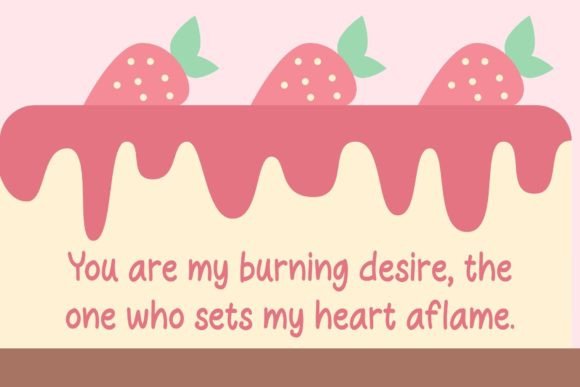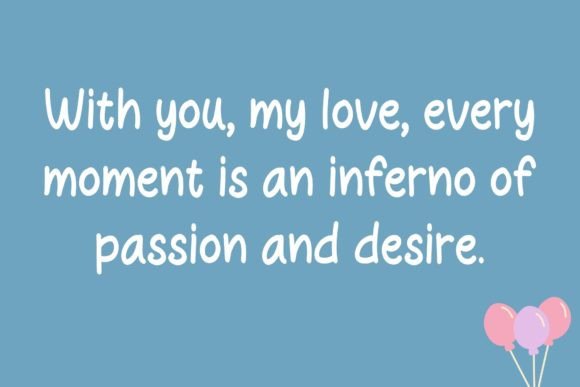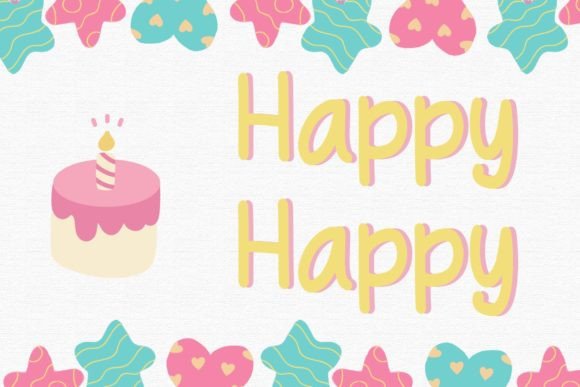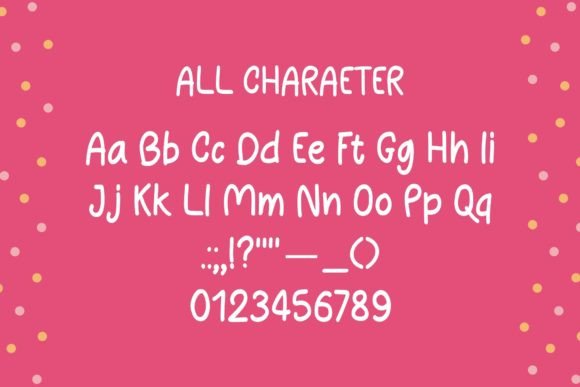
Introducing the Happy Happy Font: A Vibrant Expression of Joy
In the world of design, typography plays a crucial role in conveying emotions and setting the tone for any creative project. Whether you’re crafting a greeting card, invitation, or social media post, the right font can elevate your message and make it more engaging. That’s where the “Happy Happy” font comes in – a delightful typeface designed to spread happiness and positivity. In this article, we’ll explore the features and benefits of the “Happy Happy” font, and how it can add a vibrant touch to your designs.
The Power of Typography in Design
Typography is an essential element of design, allowing creators to communicate their message in a visually appealing way. The right font can evoke emotions, convey personality, and even influence how a message is perceived. With the vast array of fonts available, designers and crafters can choose from a wide range of styles to suit their project’s tone and theme. The “Happy Happy” font is a unique addition to this collection, specifically designed to capture the essence of happiness and joy.
What is the Happy Happy Font?
The “Happy Happy” font is a digital typeface that embodies the spirit of happiness and playfulness. Its lively and energetic design makes it perfect for projects that require a cheerful and upbeat tone. This font is ideal for designers and crafters who want to add a personal touch to their creations, making them more engaging and memorable. With its clean and crisp lines, the “Happy Happy” font is versatile and can be used for various design projects, from digital graphics to print materials.
Key Features of the Happy Happy Font
- Vibrant and Playful Design: The “Happy Happy” font boasts a lively and energetic design that is sure to capture the attention of your audience.
- High-Quality Digital File: This font is a high-quality digital file, ensuring that it looks great in both digital and print formats.
- Versatile: This font can be used for a wide range of design projects, including greeting cards, invitations, social media posts, and more.
How to Use the Happy Happy Font
- Pair it with Other Fonts: Combine the “Happy Happy” font with other complementary fonts to create a unique and visually appealing design.
- Experiment with Colors: The “Happy Happy” font looks great in bright and bold colors, so don’t be afraid to experiment with different color schemes.
- Add Graphics and Illustrations: Enhance your design by adding graphics and illustrations that match the playful and cheerful tone of the “Happy Happy” font.
Benefits of Using the Happy Happy Font
The “Happy Happy” font offers several benefits for designers and crafters, including:
- Unique and Eye-Catching Designs: This font allows you to create unique and eye-catching designs that stand out from the crowd.
- Emotional Connection: The “Happy Happy” font helps create an emotional connection with your audience, conveying a sense of happiness and positivity.
- Time-Saving: With the “Happy Happy” font, you can quickly and easily create professional-looking designs without spending hours on typography.
| Font Name | Happy Happy Font |
| Author | MyFontsShop |
The “Happy Happy” font is a vibrant and playful typeface that can add a touch of happiness to any design project. Whether you’re creating greeting cards, invitations, or social media posts, this font is sure to capture the essence of joy and positivity. With its easy-to-use design and versatile features, the “Happy Happy” font is an excellent addition to any designer’s or crafter’s toolkit. So why not give it a try and let your words come to life with the infectious energy of the “Happy Happy” font?
Get Ready to Spread Happiness with the Happy Happy Font